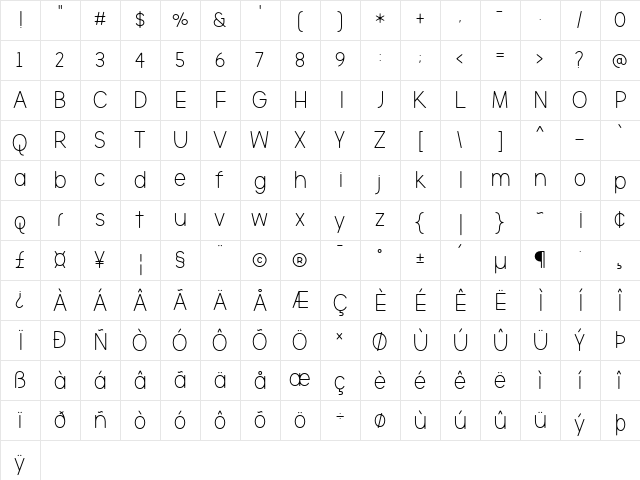
The Brooklyn Smooth Regular
| Foundry | Brittney Murphy |
| Designer | Brittney Murphy |
Design Context for The Brooklyn Smooth Typeface
The Brooklyn Smooth offers clean, dependable letterforms without strong stylistic allegiance, making it a practical choice for designers who need flexibility.